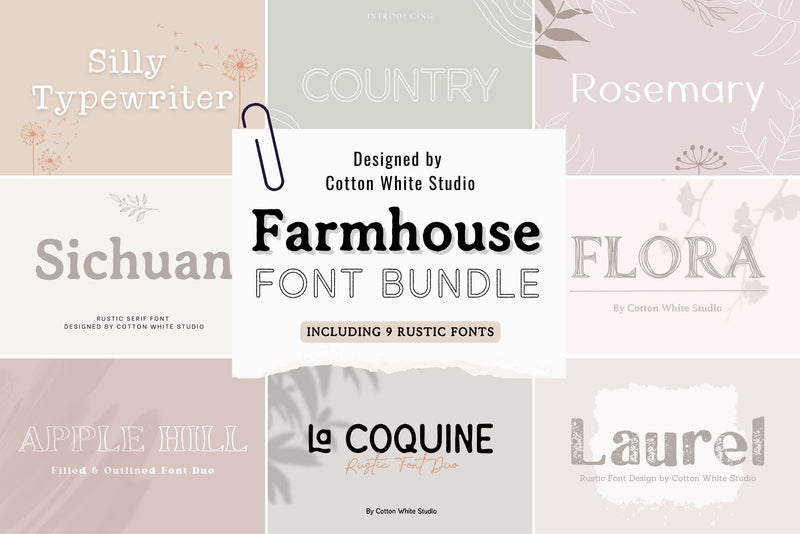
Farmhouse Font Bundle
Introducing the ultimate farmhouse font bundle! A bundle of 11 unique fonts from 9 font families. This collection features a variety of rustic, charming, and versatile fonts that are perfect for creating a warm and inviting look on any project. From hand-lettered titles to rustic labels and signs, these fonts will add a touch of authenticity to your designs. Whether you're working on a blog, website, or social media post, these fonts will elevate your content and make it stand out. Don't miss out on this bundle, get it now!
Font 1 : Apple Hill
Font 2: Apple Hill Outlined
Font 3: Country
Font 4: Flora
Font 5: La Coquine
Font 6: Laurel
Font 7: Laurel very Distressed
Font 8: Rosemary
Font 9: Sichuan
Font 10: Silly Typewriter
Font 11: Stradanka Rustic